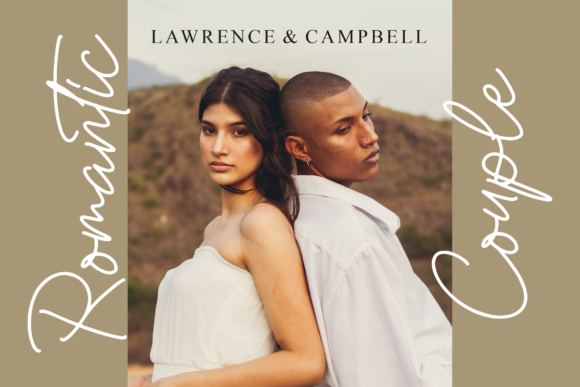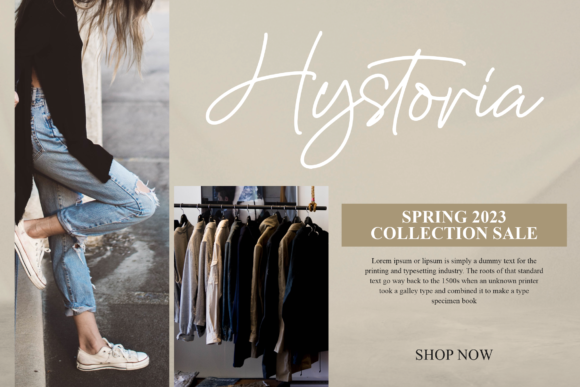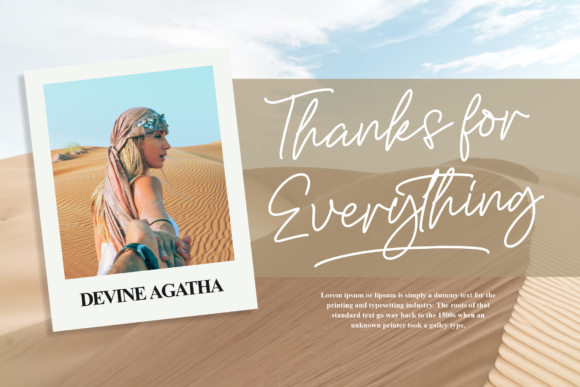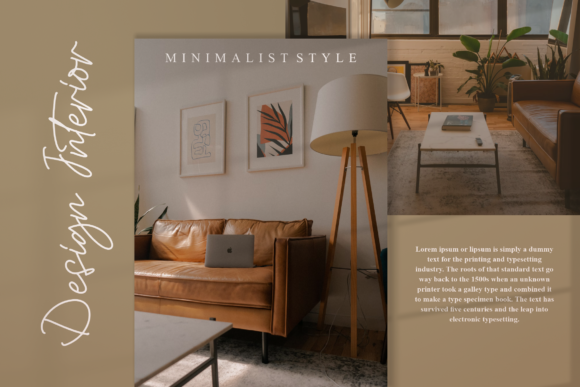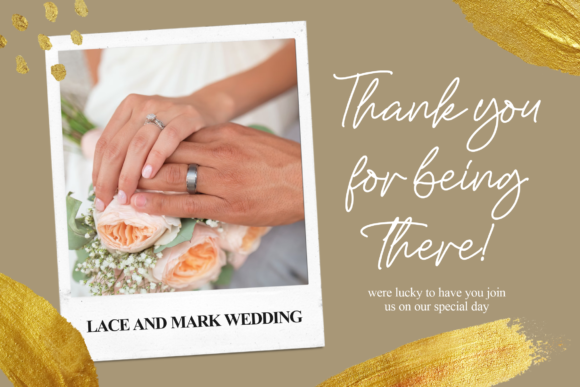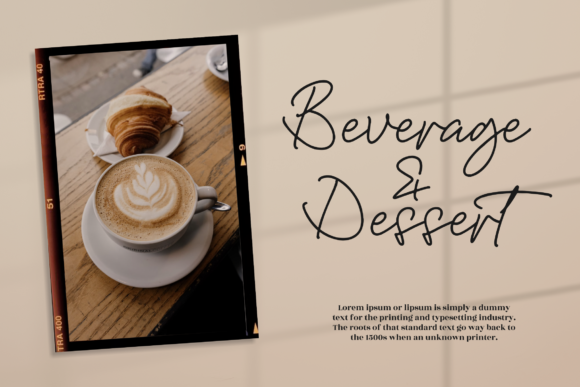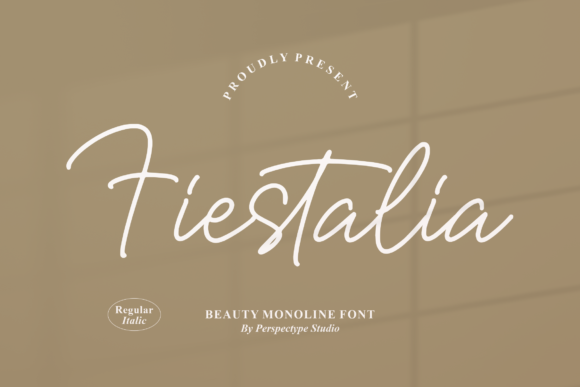
Introducing Fiestalia Font: The Perfect Script Font for Your Creative Projects
Are you looking for a stylish and dainty script font to elevate your design projects? Look no further than Fiestalia Font! This beautiful script font is perfect for designers, crafters, and anyone looking to add a touch of elegance to their work. In this article, we’ll explore the features and benefits of Fiestalia Font, and show you how it can be used to take your projects to the next level.
What is Fiestalia Font?
Fiestalia Font is a stunning script font that is designed to add a touch of sophistication and glamour to any project. Its delicate and dainty strokes make it perfect for use in a variety of applications, from logos and branding projects to labels, photography, and more. Whether you’re working on a special event, a craft project, or simply want to add some personality to your design work, Fiestalia Font is the perfect choice.
Features of Fiestalia Font
So, what makes Fiestalia Font so special? Here are just a few of its key features:
- Stylish and dainty script: Fiestalia Font features beautiful, flowing script strokes that add a touch of elegance to any project.
- Versatile: This font is perfect for use in a wide range of applications, from logos and branding to labels, photography, and more.
- Easy to read: Despite its delicate appearance, Fiestalia Font is surprisingly easy to read, making it perfect for use in both digital and print applications.
- High-quality: Fiestalia Font is a high-quality font that is designed to produce crisp, clear results at any size.
Uses for Fiestalia Font
So, what can you use Fiestalia Font for? The possibilities are endless! Here are a few ideas to get you started:
- Logos and branding projects: Add a touch of elegance to your logo or branding project with Fiestalia Font.
- Labels and packaging: Use Fiestalia Font to create beautiful labels and packaging that will make your products stand out.
- Photography: Add a touch of sophistication to your photography with Fiestalia Font, perfect for use in watermarks or captions.
- Special events: Use Fiestalia Font to create beautiful invitations, programs, and other materials for special events like weddings, parties, and more.
- Craft projects: Add a touch of personality to your craft projects, such as scrapbooking, card making, and more.
Why Choose Fiestalia Font?
So, why should you choose Fiestalia Font for your project? Here are just a few reasons:
- Unique and stylish: Fiestalia Font is a unique and stylish script font that will add a touch of elegance to any project.
- High-quality: Fiestalia Font is a high-quality font that is designed to produce crisp, clear results at any size.
- Versatile: This font is perfect for use in a wide range of applications, from logos and branding to labels, photography, and more.
In conclusion, Fiestalia Font is a beautiful and stylish script font that is perfect for designers, crafters, and anyone looking to add a touch of elegance to their work. With its delicate and dainty strokes, versatile uses, and high-quality design, Fiestalia Font is the perfect choice for any project. So why wait? Download Fiestalia Font today and start creating stunning designs that will leave a lasting impression!
Whether you’re a professional designer or a crafty DIY enthusiast, Fiestalia Font is sure to become a favorite in your collection. Its unique and stylish script strokes make it perfect for use in a wide range of applications, from logos and branding to labels, photography, and more. So go ahead, get creative, and see what amazing things you can do with Fiestalia Font!